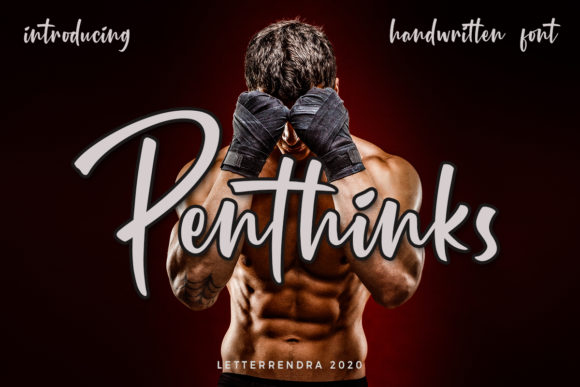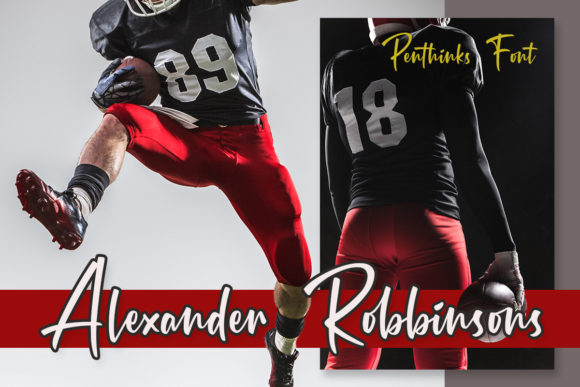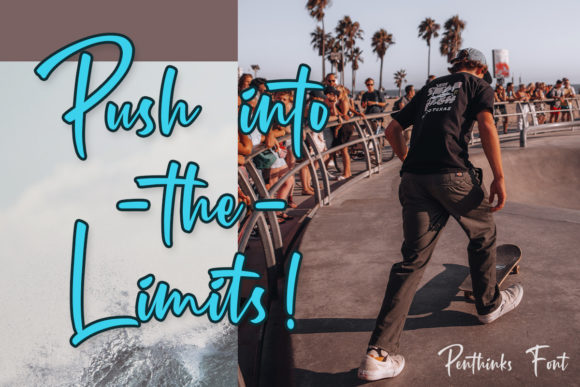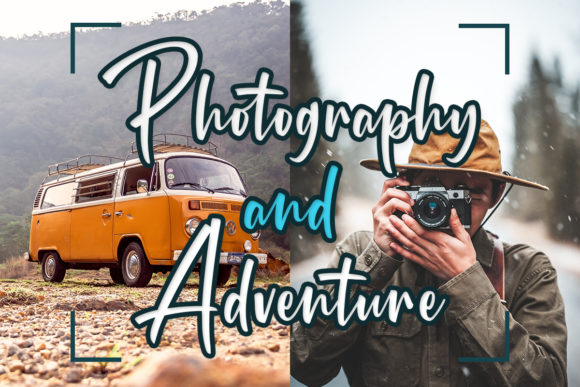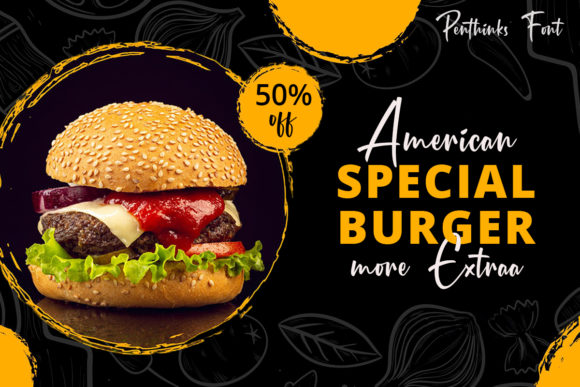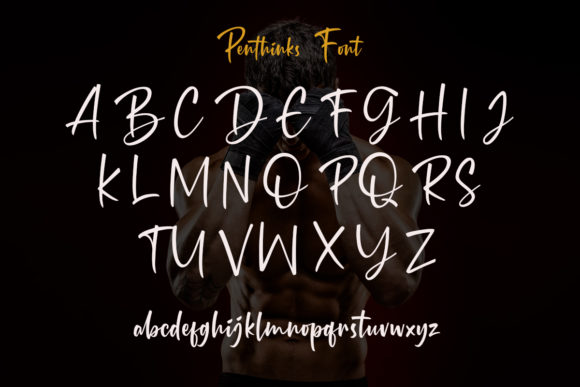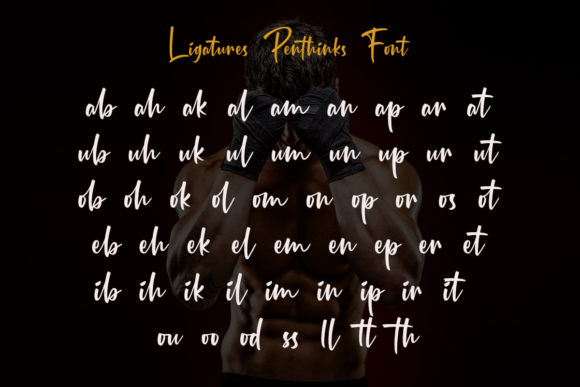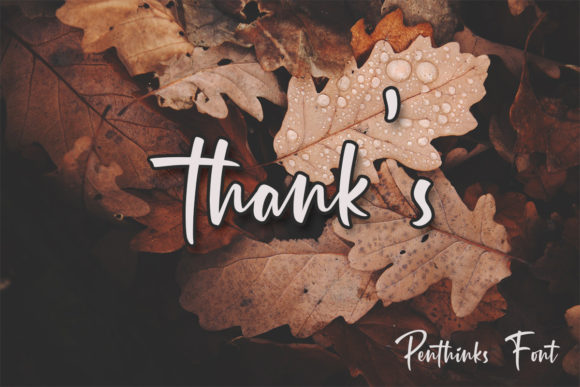
Penthinks Font
Penthinks is a unique and interesting handwritten font. A little bit quirky, this font is a great choice for a wide variety of contexts!